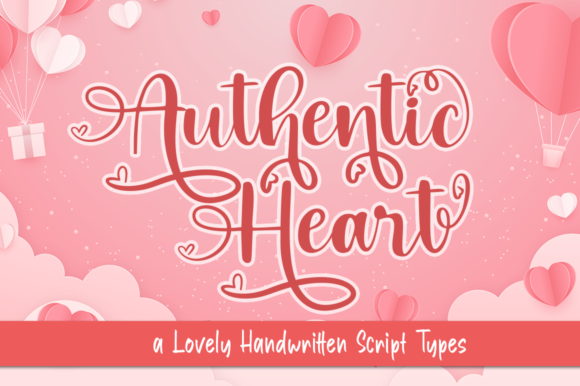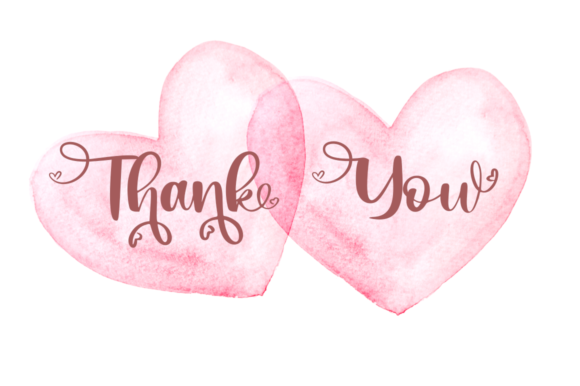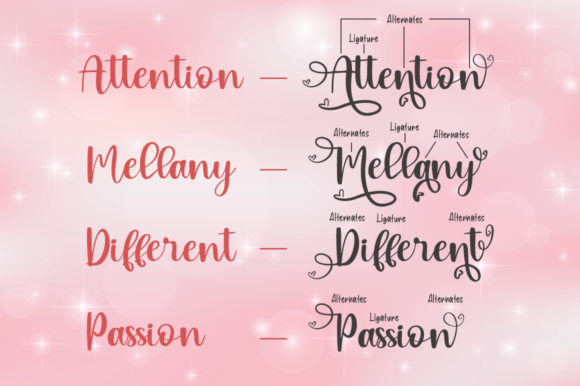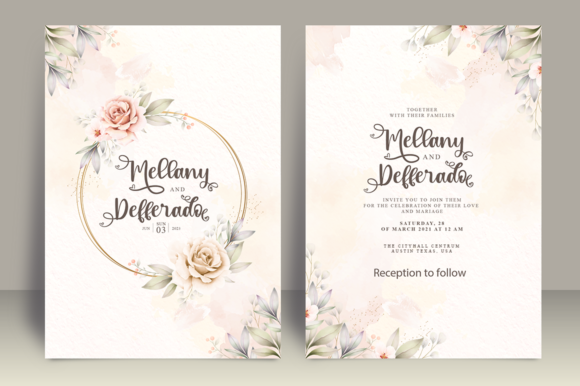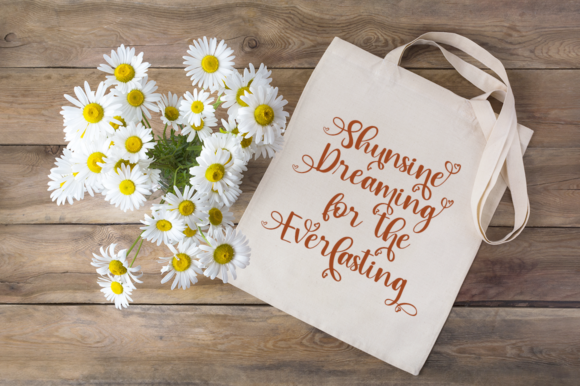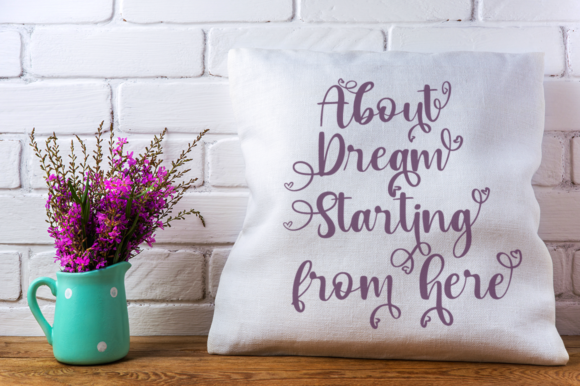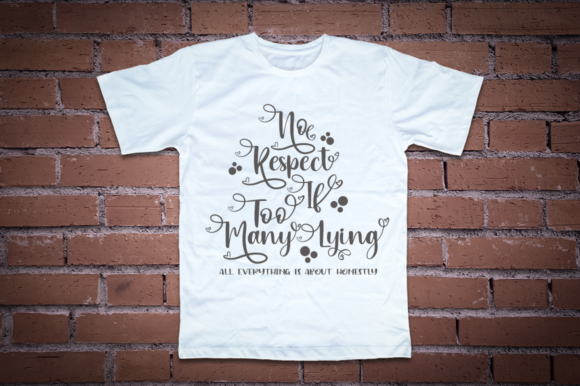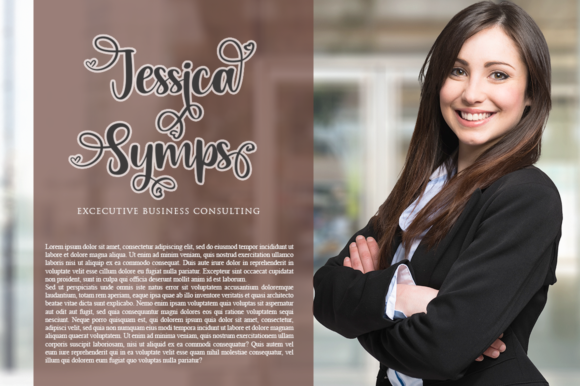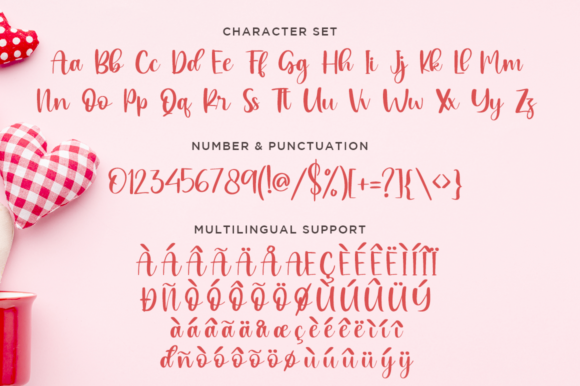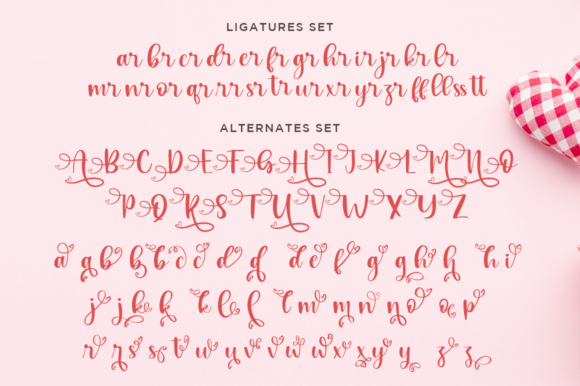
Authentic Heart Font
Authentic Heart is a charming and versatile handwritten font that exudes warmth and authenticity. Its sweet and all-around style makes it a perfect choice for a wide range of projects, adding a touch of romance and joy to each design.
With its flexible and playful character, Authentic Heart offers endless possibilities for creativity. Whether used in greeting cards, invitations, quotes, social media graphics, logos, or any other project, this font brings a delightful and cheerful vibe to the design.
The font’s natural and handcrafted appearance gives it a genuine and heartfelt feel, making it well-suited for projects that aim to create a personal connection with the audience. It evokes a sense of intimacy and sincerity, making it ideal for expressing emotions, sentiments, and affection.
Authentic Heart’s PUA encoding provides easy access to all the lovely glyphs and swashes, making it effortless to add decorative elements and flourishes to the text, adding even more charm to the design.
Whether you’re designing for special occasions, cheerful events, or simply want to infuse your project with a heartwarming touch, Authentic Heart is a delightful choice. Its ability to bring a smile to the viewer’s face and its endless variations make it a truly valuable font for any creative endeavor. Embrace its playful and genuine style, and let your imagination run wild with this beautiful and versatile handwritten font.